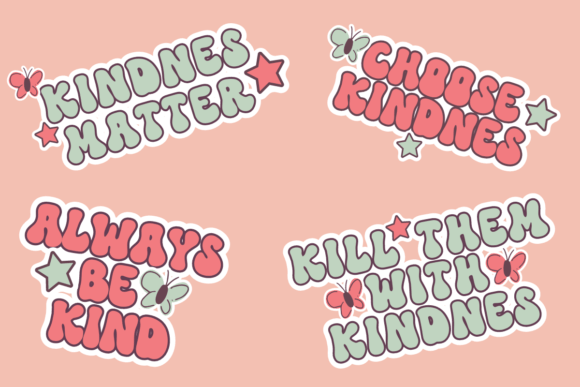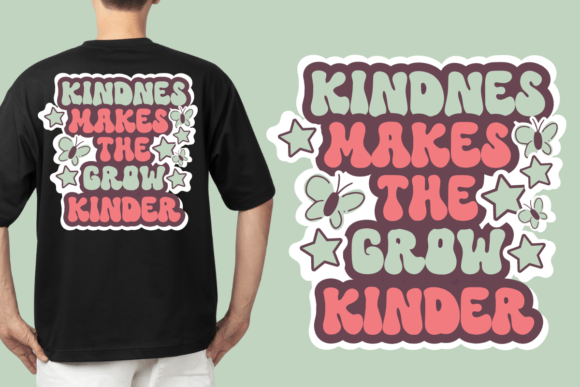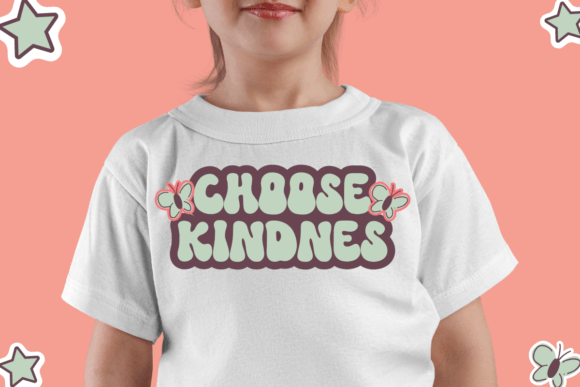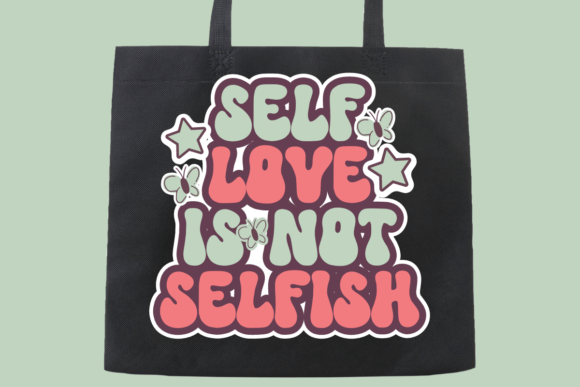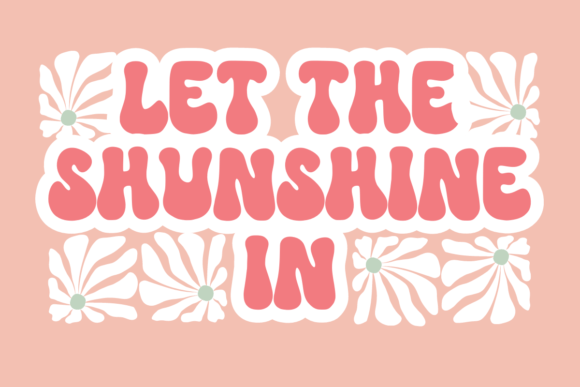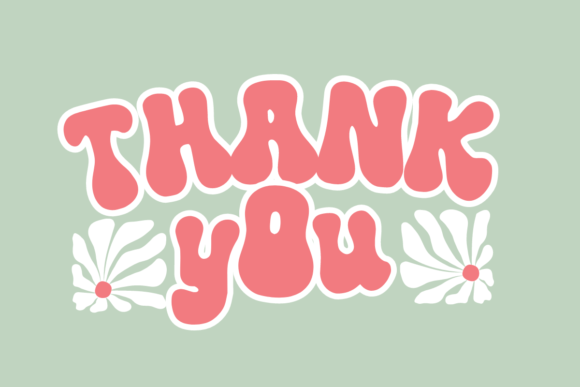
Introduction to Kindnes Font Font
Fonts play a crucial role in design, and the Kindnes Font font is a typeface that brings both character and versatility to any project. Whether you’re working on a branding project, a website, or a print design, the Kindnes Font font offers a unique style that can elevate your work.
Kindnes is a fun and groovy font, it’s perfect for designs that need a playful, cheery accent.
It is suitable for book covers, posters, packaging, merchandise, logotypes, and much more .
Key Features of Kindnes Font Font
Why Choose Kindnes Font Font?
The Kindnes Font font is more than just a typeface – it’s a design tool that helps you communicate your message with style and clarity. Its unique character set and versatile design make it suitable for a wide range of applications, from elegant invitations to bold headlines.
With its carefully crafted letterforms and balanced proportions, the Kindnes Font font ensures readability and visual appeal across all mediums.
What makes Kindnes Font font special?
The Kindnes Font font stands out with its unique design, exceptional readability, and versatility across various design applications.